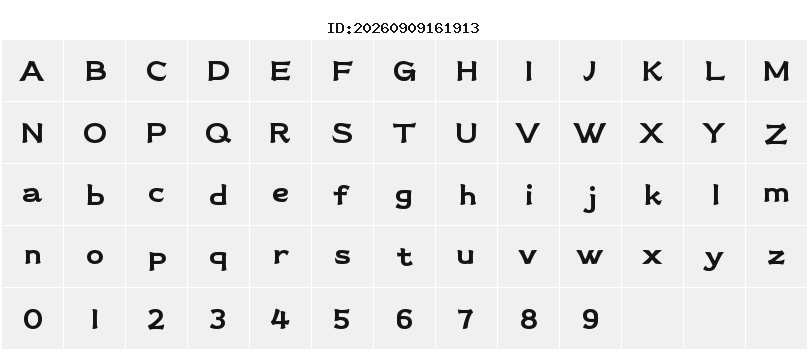
字语古隶体 Preview
• Font Name: 字语古隶体
• Full Font Name: 字语古隶体
• PostScript Name: ZiYuGuLiTi
• Designer: 天津卓漫科技有限公司
• Manufacturer: 字语字库
About 字语古隶体.ttf
字语古隶体.ttf is a modern, elegant sans-serif font designed for ultimate readability and visual harmony. Perfect for branding, headlines, web design, and print materials.